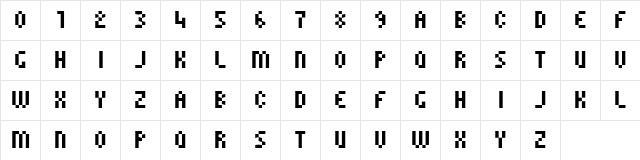
PXL8R Regular
| Foundry | defaulterror |
| Designer | Derek Clark |
Design Context for PXL8R Typeface
PXL8R is a composed and adaptable typeface that performs quietly and consistently across a wide range of design contexts.